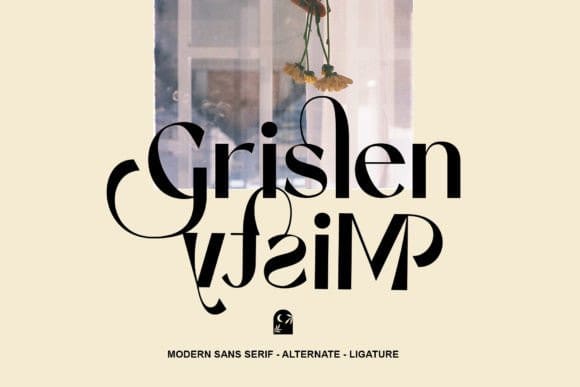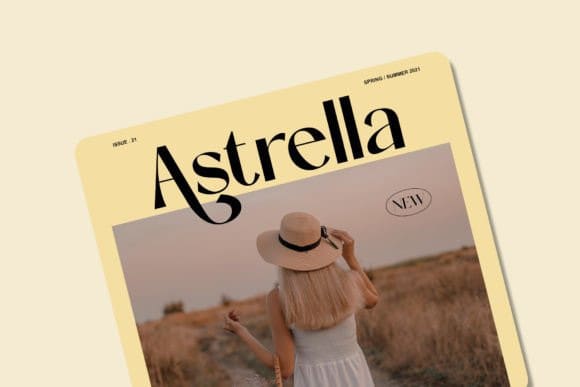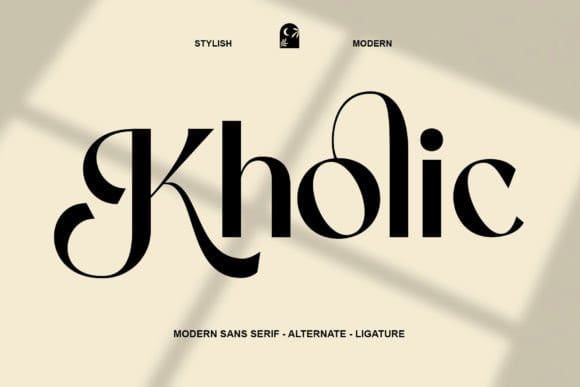
Kholic Font
Kholic Font is a special modern stylistic style font. Made with accurate accuracy with beautiful curves. With alternative characters and ligatures that make your work very special. It is perfect for branding design, logos, greeting cards, and title packaging. and other designs. Immediately use our fonts to make your work even more amazing.